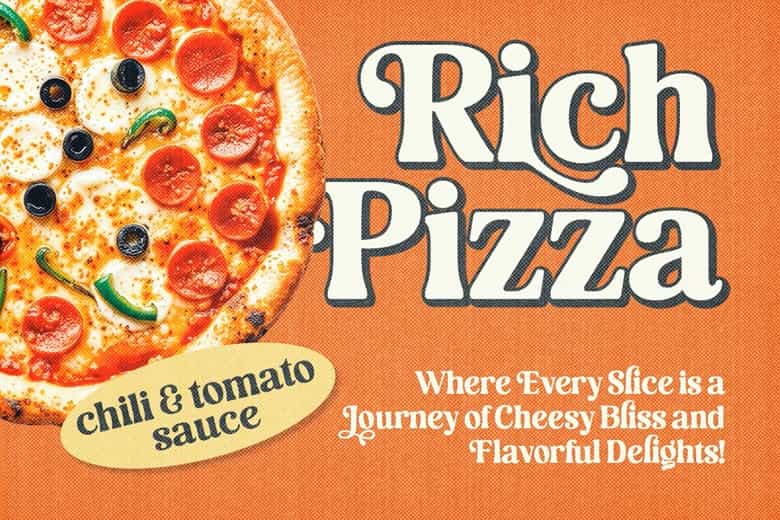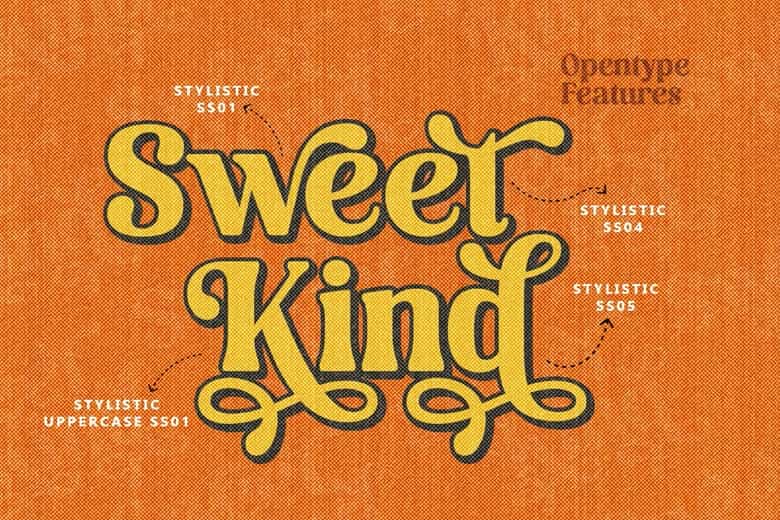
Romantic Angela is a useful, cute and funny retro display serif typeface. Each of the 4 Romantice Angela styles, regular, extrude, outline, shadow has italics. The best result comes from mixing each style.